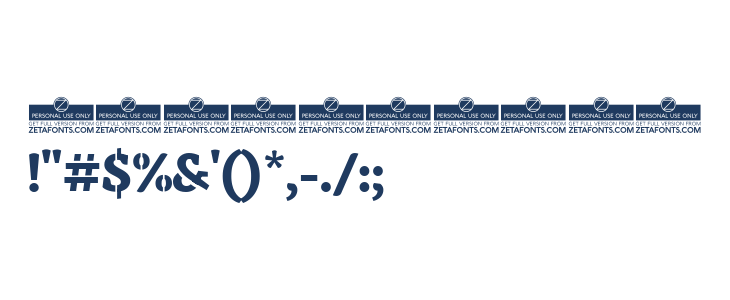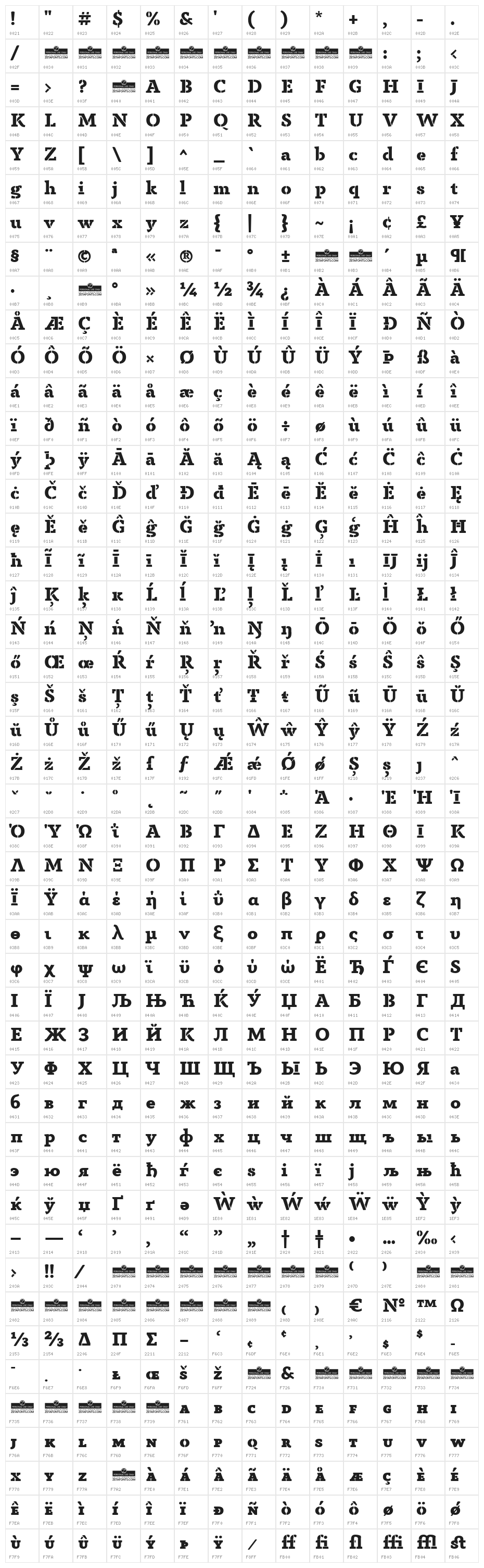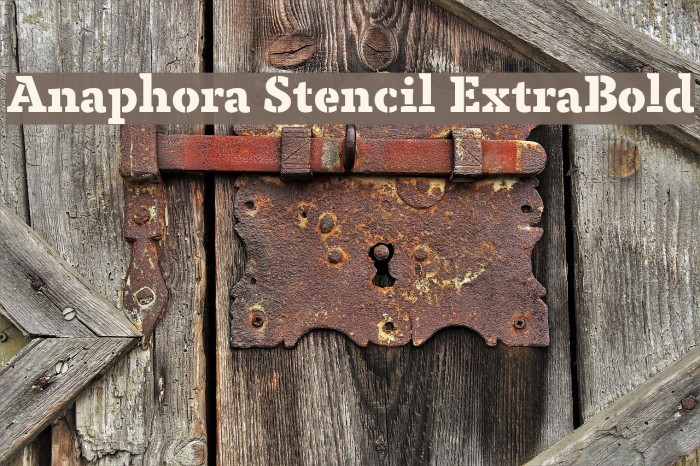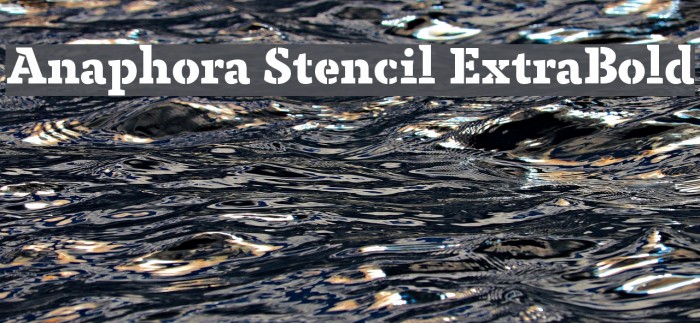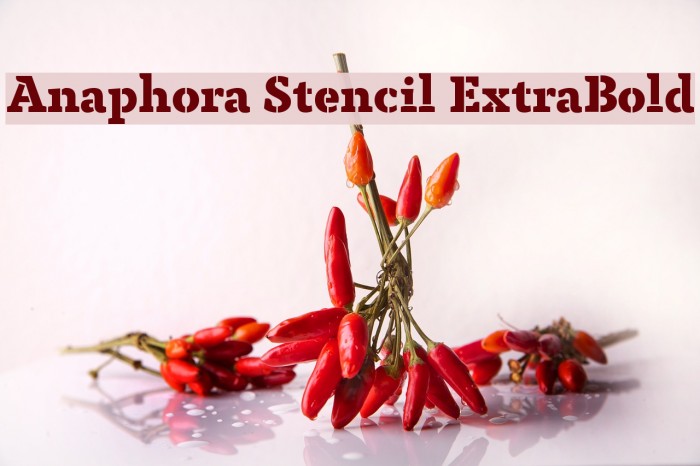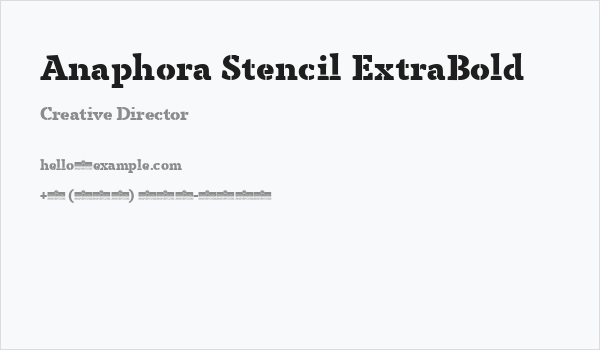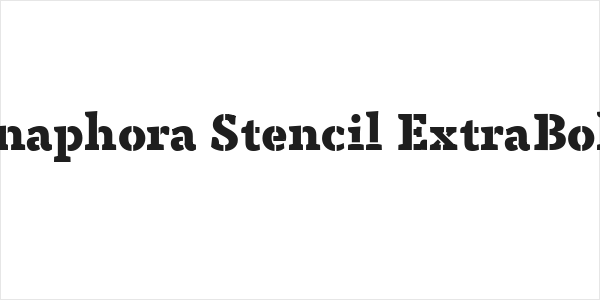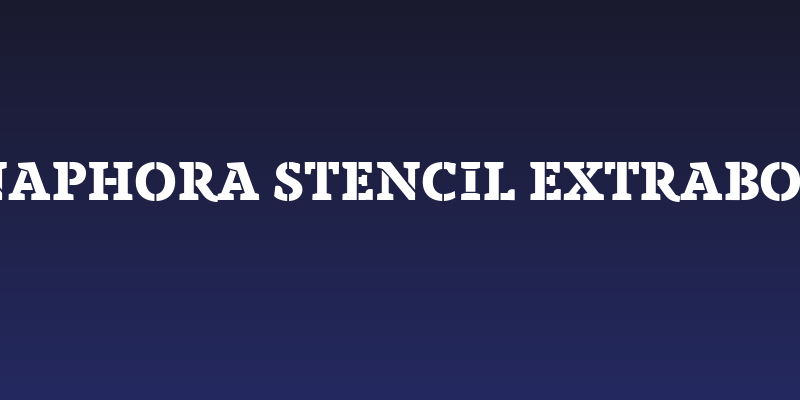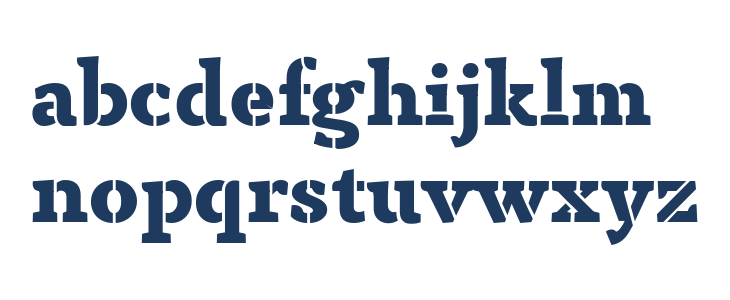
Anaphora Stencil ExtraBold Font
Anaphora Stencil ExtraBold Description
This font features a bold and striking stencil design, characterized by its thick, blocky letters with distinct cut-out sections that create a rugged, industrial feel. The uppercase and lowercase letters maintain a consistent weight, providing a strong visual impact. The numerals and special characters follow the same bold style, ensuring uniformity across all text elements. Its design is both functional and decorative, making it suitable for attention-grabbing headlines and signage. The font's robust appearance is enhanced by its high contrast in stroke thickness, which adds to its readability and visual appeal.
| Use Case | Headlines, Logos, Signage |
| Proposed Projects | Ideal for use in posters, signage, branding, and any project requiring a strong, impactful typeface. |